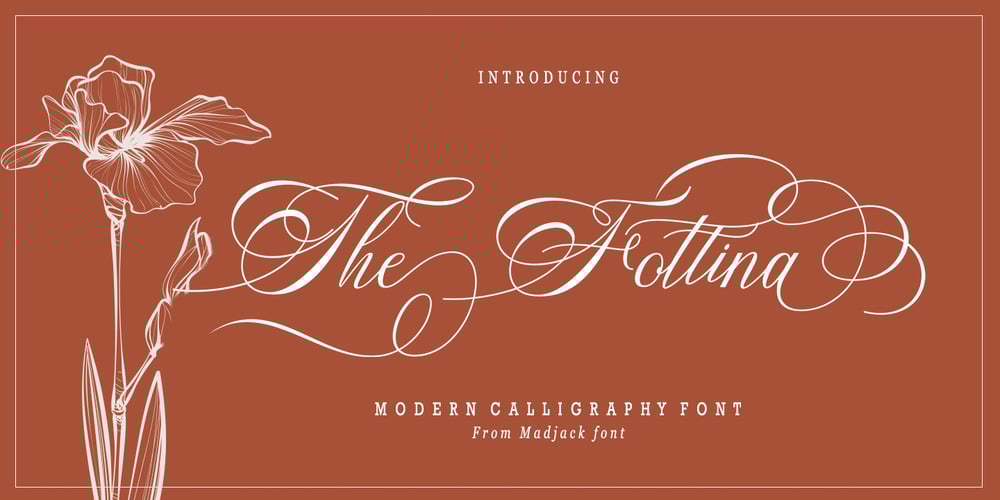
The Fottina Script
The Fottina Script font
The Fottina Script Font Family was designed by Zaki Muhammad and published by madjack.font. The Fottina Script contains 1 styles and family package options. The Fottina Script is a calligraphic script font that comes with beautiful alternative characters. a mixture of copper calligraphy with a zipper style. Designed to bring the elegance of style. The Fottina Script attracts good, clean, feminine, sensual, glamorous, simple and very easy to read fonts. The classic style is very suitable to be applied in various formal forms such as invitations, labels, menus, logos, fashion, make up, stationery, letterpress, romantic novels, magazines, books, greeting / wedding cards, packaging, labels.The Fottina Script has 450 flying machines. including multiple language support. With OpenType features with alternative styles, binders and characters, it allows you to mix and match pairs of letters to suit your design, as well as a touch of ornament to make this font look elegant.To activate the OpenType Stylistic alternative, you need a program that supports OpenType features such as Adobe Illustrator CS, Adobe Indesign & CorelDraw X6-X7, Microsoft Word 2010 or newer. (Windows), Letter Books (Mac) or software programs such as PopChar (for Windows and Mac).How to access all alternative characters using Adobe Illustrator:https://www.youtube.com/watch?v=XzwjMkbB-wQ How to use the font style set in Microsoft Word 2010 or later:https://www.youtube.com/watch?v=NVJlZQ3EZU0 There are additional ways to access alternatives / swash, use Character Map (Windows), Nexus Fonts (Windows) Font Book (Mac) or software programs like PopChar (for Windows and Mac)How to access all alternative characters, using Windows Character Map with Photoshop:https://www.youtube.com/watch?v=Go9vacoYmBwThank you for your visit.